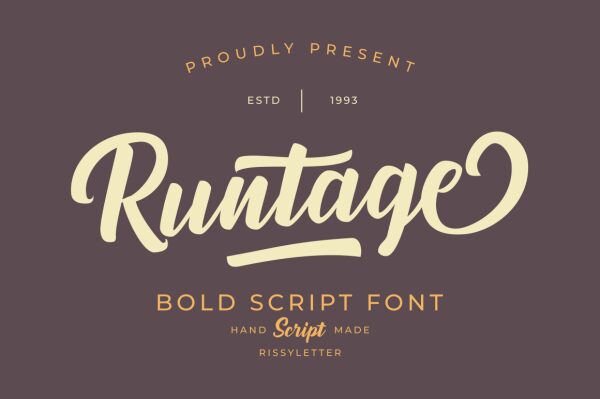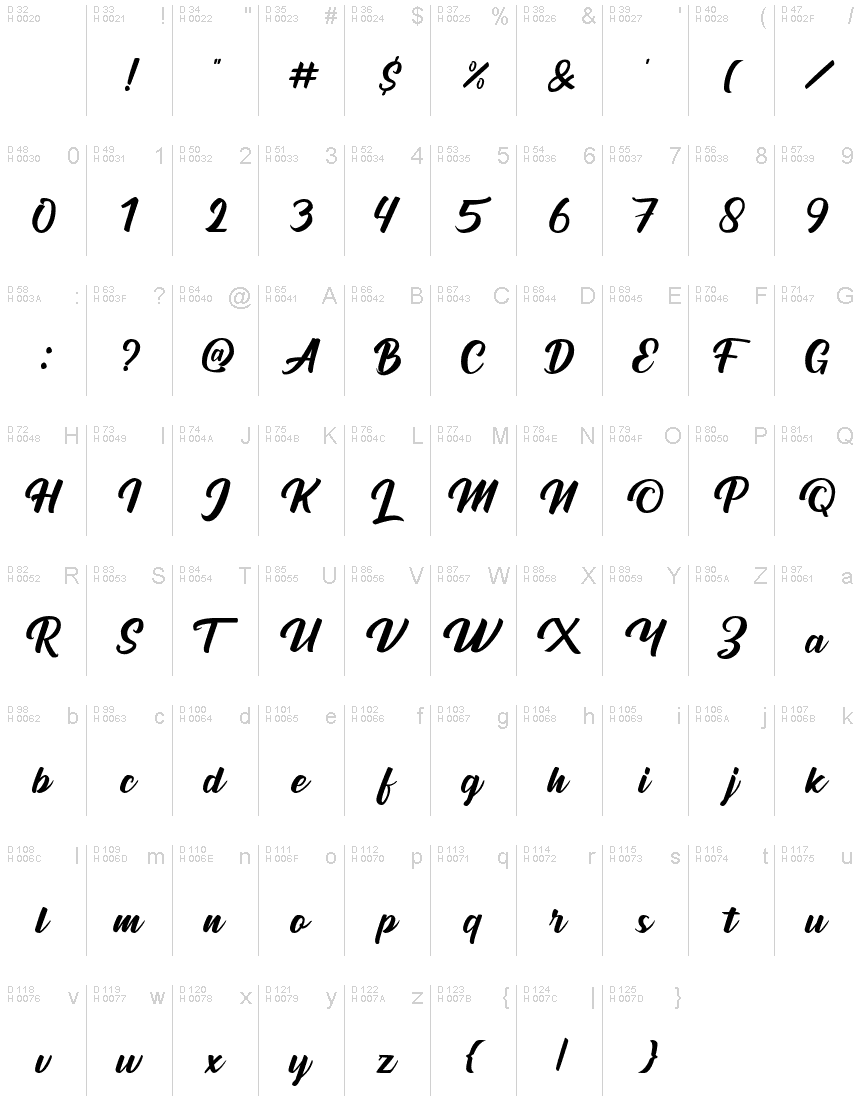
Runtage
Runtage, the latest creation from Rissyletter Studio, is a semi-bold handwritten font that will add a touch of personality to any design project. Its playful and whimsical style makes it perfect for children's book covers, greeting cards, and invitations. Meanwhile, its boldness makes it suitable for branding projects such as logos and packaging designs. Whether you're looking to add charm to your next project or make a bold statement, Runtage is the perfect font to achieve your desired effect. Try it out today and let your creativity soar!